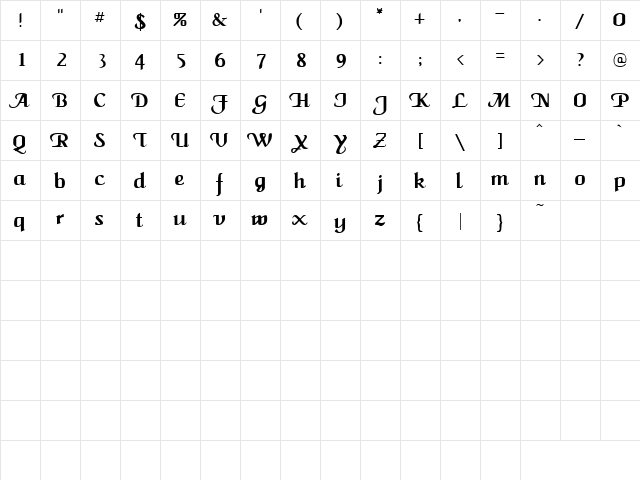
Roman Twist Regular
Design Context for Roman Twist Typeface
Roman Twist is a composed and adaptable typeface that performs quietly and consistently across a wide range of design contexts.
Pro Tip: Use Roman Twist in both headline and body roles to test its range before committing to a single application.